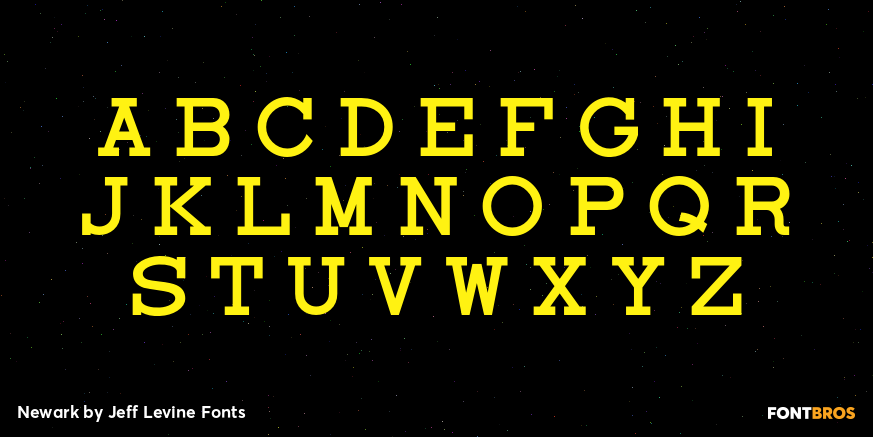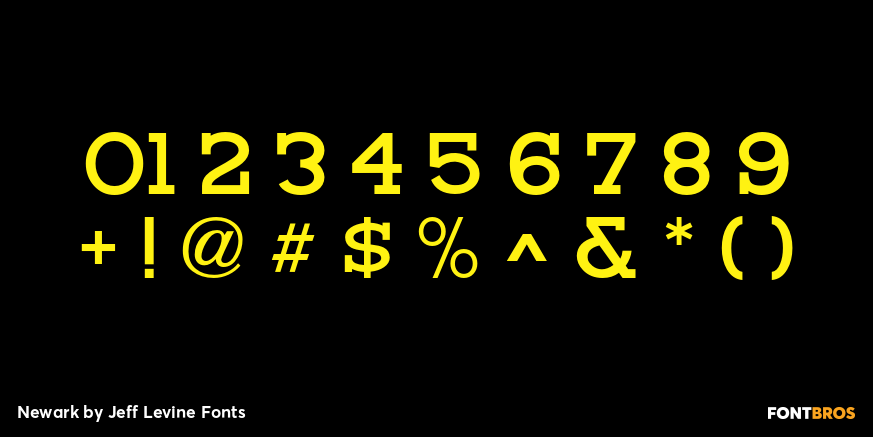
Newark
Inspired by a set of vintage alphabet game tile pieces, Newark JNL has similar traits to other slab serif Romans, but enough 'quirky' letter widths to break the rules and have it stand out on its own merits.
The name derives from font work files in progress, often saved as 'new work' until a fitting name is decided upon. It seemed only right that this phrase be turned around into a font name itself.
Newark JNL is available in both regular and oblique versions.